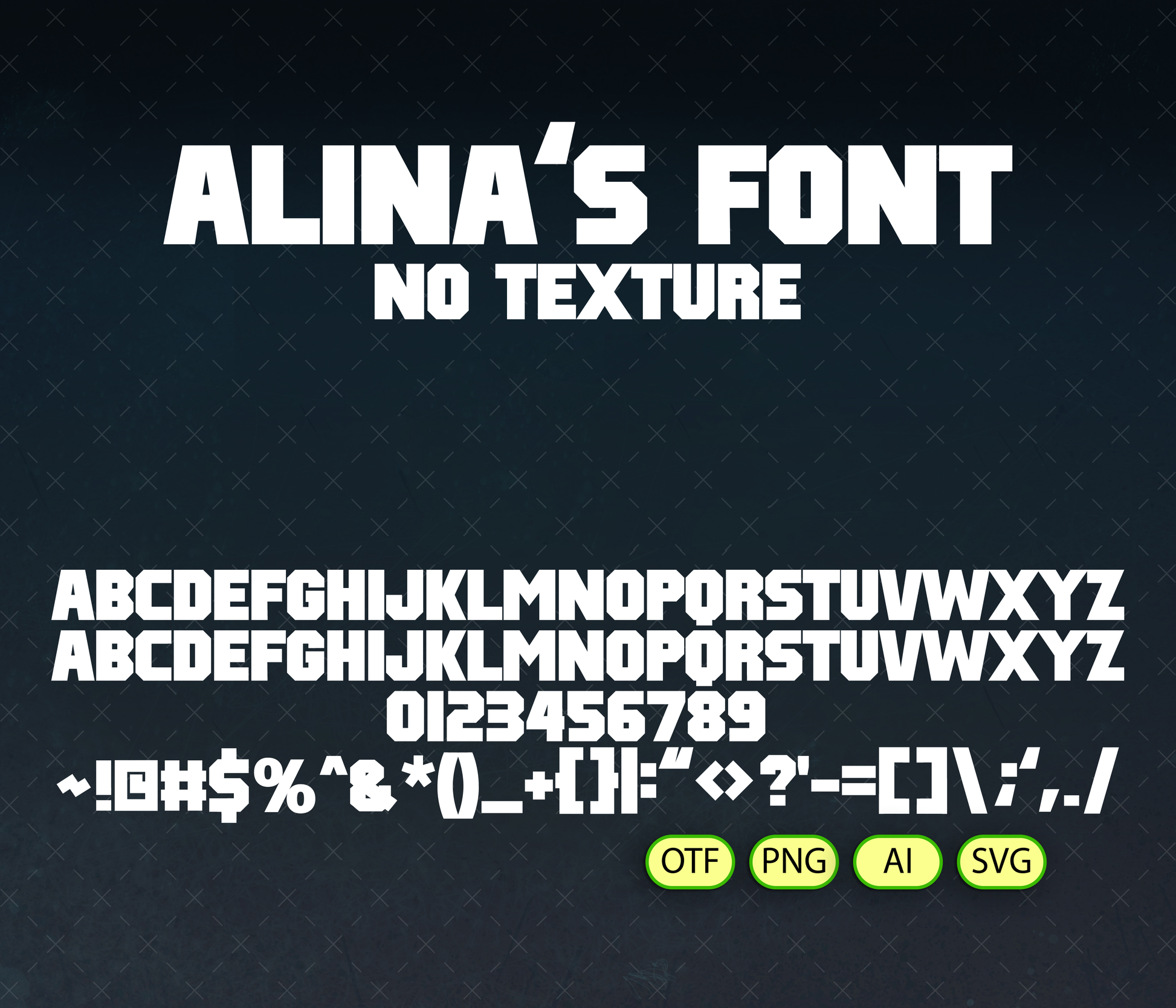
Elite Academy Font
Step into the controversial world of powered youth with our font inspired by the next generation of enhanced individuals. This typeface captures the raw energy and dark humor of super-powered students, perfect for creators who want to infuse their projects with edgy rebellion and youthful intensity.
Our Young Powers font features bold, rebellious characters that reflect the intense and sometimes dark nature of gifted youth. Perfect for:
Transform your designs with the power of this enhanced-youth inspired typeface. From promotional materials to personal projects, this font delivers the perfect balance of darkness and dynamic energy. Ready to bring super-powered academy vibes to your designs? This font is your gateway to creating impactful, intensely charged content.